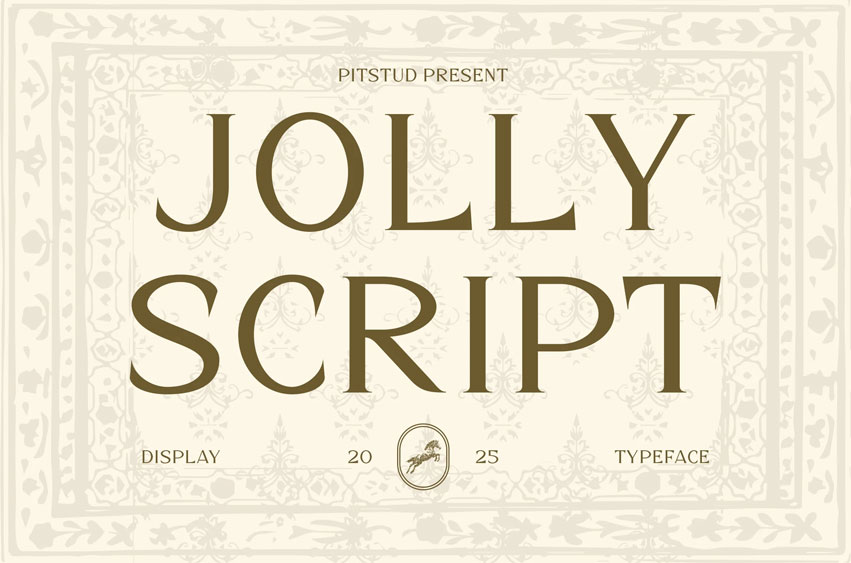
Jolly Script Font Aesthetic Luxury Font is an elegant and refined typeface crafted to bring sophistication, timeless beauty, and artistic charm to your design projects. With graceful curves, delicate strokes, and a luxurious presence, Jolly Script blends classical inspiration with modern sensibility, making it perfect for high-end branding, editorial work, and decorative displays.
Whether you’re creating a wedding invitation, luxury product branding, editorial magazine layout, or signature logo, Jolly Script delivers both readability and a sense of exclusivity. Its fine details and versatile character set make it ideal for packaging, fashion campaigns, website headers, stationery, and promotional designs.
• Luxury Script Design: Refined forms with elegant detailing.
• Complete Character Set: Uppercase, lowercase, numbers, punctuation, symbols.
• OpenType Features: Alternates, ligatures, stylistic sets.
• Multilingual Support: Covers a wide range of languages for global use.
Jolly Script blends artistic grace and luxury appeal, creating a font that elevates any creative work. From branding to publishing, it provides both visual impact and timeless style.
• Brand Identity: Add elegance and luxury to your business presence.
• Wedding & Events: Perfect for invitations, menus, and stationery.
• Editorial Design: Create graceful magazine titles and headlines.
• Product Packaging: Elevate beauty, fashion, or gourmet items.
• Logo Design: Develop a signature look with artistic charm.